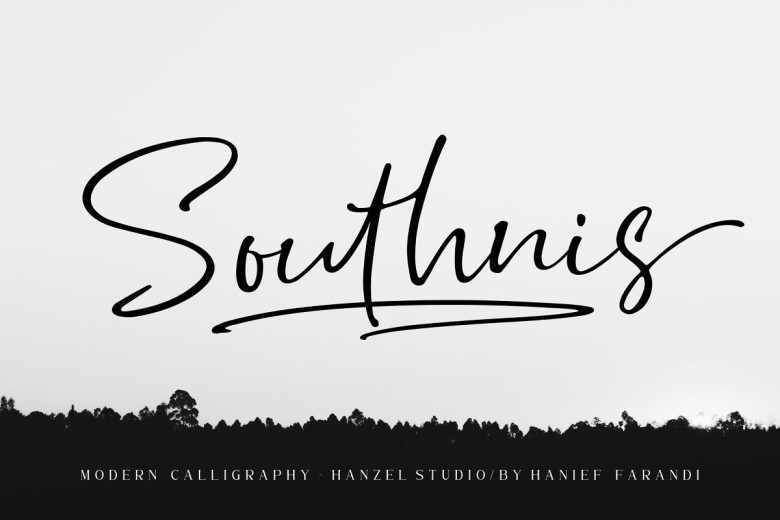
Southnis Handwritten Signature Font
Introducing Southnis Handwritten Signature Font, i hope this font is perfect for creating signature logos and watermarks for photography studio or wedding invitation, Lable, Logo, Magazine best for initial or branding logo signature.
I madefully with love and unique !! Southnis a full set of beautifull hand letters, numerals, a large range of punctuation and ligatures. Giving realistic hand-lettered style.